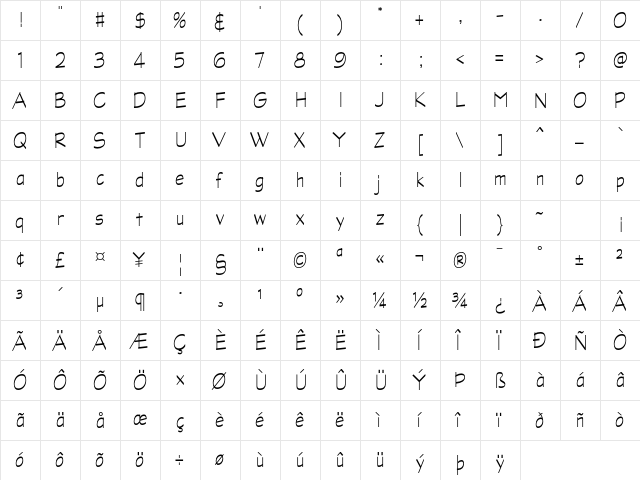
Graphite AT Condensed Light Regular Font Preview
Design Context for Graphite AT Condensed Light Typeface
Graphite AT Condensed Light offers clean, dependable letterforms without strong stylistic allegiance, making it a practical choice for designers who need flexibility. Its slender proportions lend an understated elegance to any composition. The condensed width makes it efficient for tight spaces without sacrificing legibility.